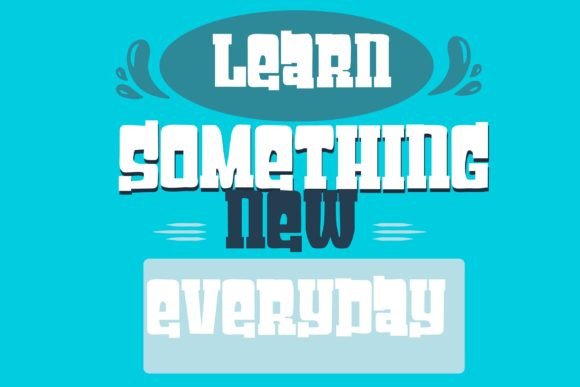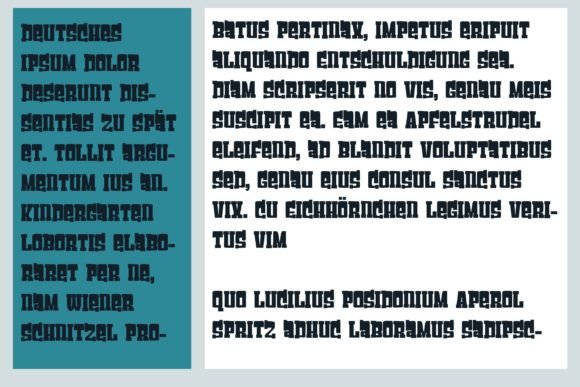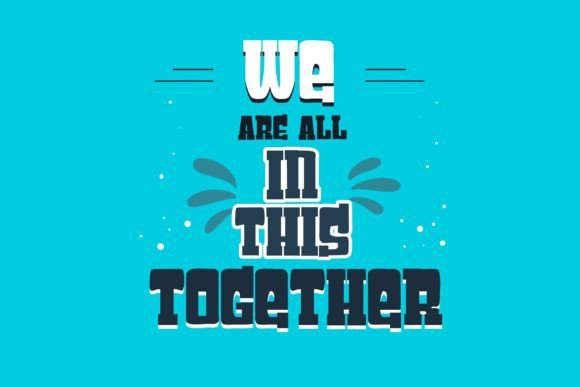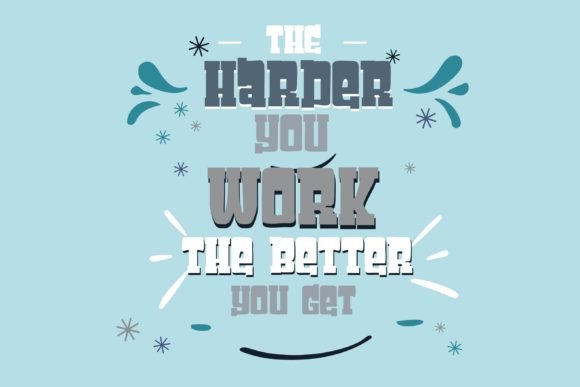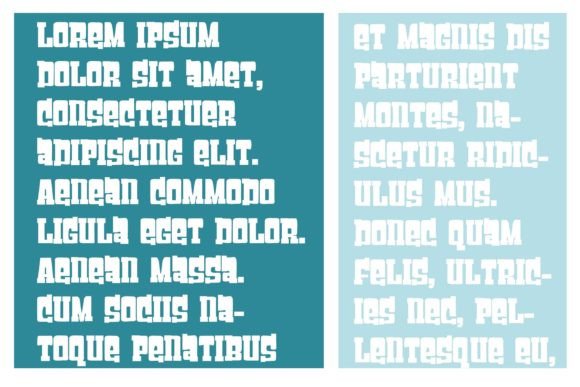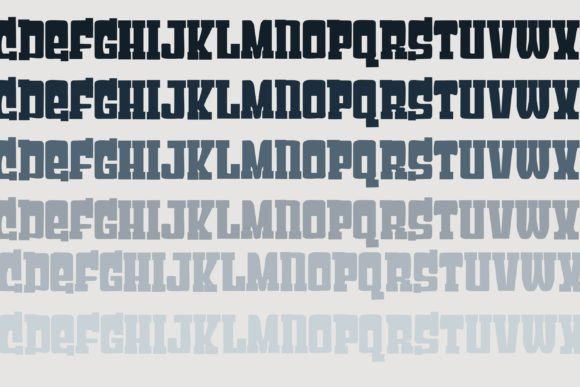
Introduction to Jeopardy Font
This hand-crafted whimsical font is a fun, squat serif with no descenders.
3D version included .
Key Features of Jeopardy Font